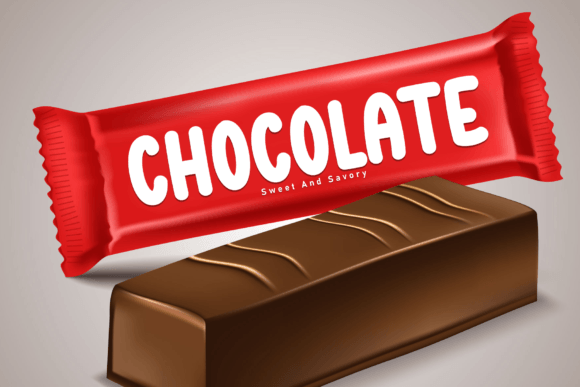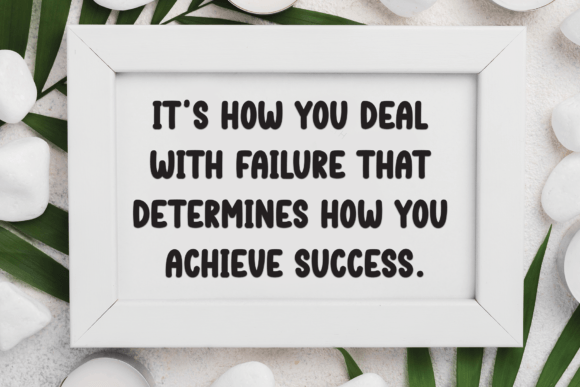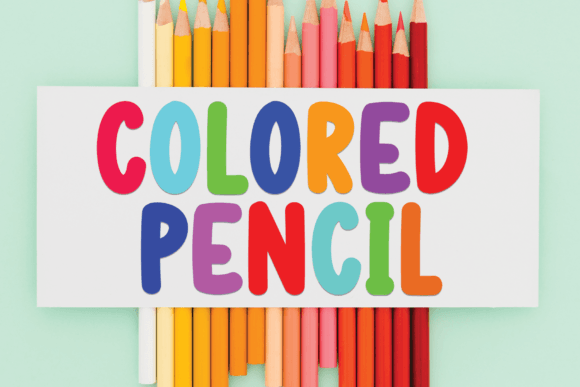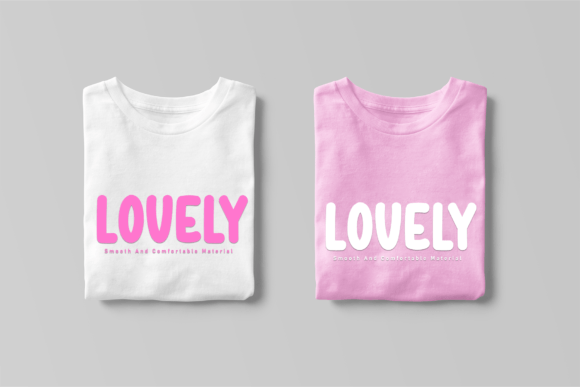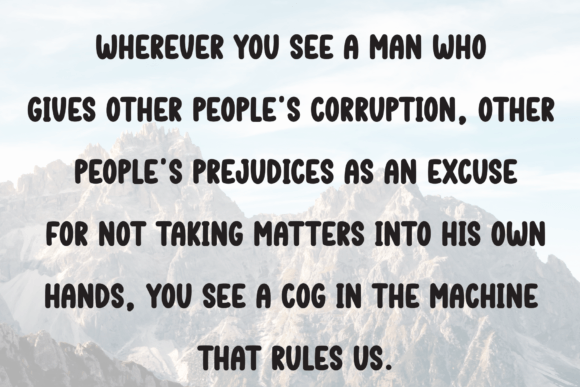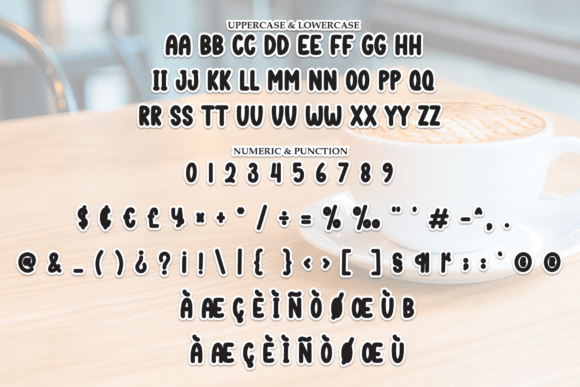
Cafe Coffee Font: The Perfect Addition to Your Design Projects
Are you a designer or crafter looking for a font that can add a touch of whimsy and charm to your projects? Look no further than Cafe Coffee Font. This cute and charming display font is sure to brighten up each of your designs and leave a lasting impression on your audience. In this article, we’ll take a closer look at Cafe Coffee Font, its features, and how you can use it to elevate your design projects.
What is Cafe Coffee Font?
Cafe Coffee Font is a display font that is designed to add a touch of playfulness and quirkiness to your designs. Its unique and charming style makes it perfect for a variety of projects, from branding and advertising to packaging and signage. The font is carefully crafted to evoke the feeling of a cozy coffee shop, making it ideal for cafes, coffee shops, and bakeries.
Key Features of Cafe Coffee Font
So, what makes Cafe Coffee Font so special? Here are some of its key features:
- Whimsical and Quirky: Cafe Coffee Font has a unique and playful style that is sure to grab attention.
- Cute and Charming: The font’s design is carefully crafted to evoke a sense of warmth and coziness.
- Display Font: Cafe Coffee Font is designed specifically for display purposes, making it perfect for headlines, titles, and short text.
- Easy to Read: Despite its playful style, Cafe Coffee Font is easy to read and understand, making it perfect for a variety of applications.
How to Use Cafe Coffee Font in Your Designs
Now that we’ve covered the features of Cafe Coffee Font, let’s take a look at how you can use it in your designs. Here are some ideas to get you started:
- Branding and Advertising: Use Cafe Coffee Font to create eye-catching logos, ads, and marketing materials for your clients or business.
- Packaging Design: Add a touch of whimsy to your product packaging with Cafe Coffee Font.
- Signage: Use Cafe Coffee Font to create eye-catching signs and displays for your business or event.
- Social Media Graphics: Add a touch of personality to your social media graphics with Cafe Coffee Font.
Tips for Using Cafe Coffee Font Effectively
To get the most out of Cafe Coffee Font, here are some tips to keep in mind:
- Use it Sparingly: Cafe Coffee Font is a display font, so use it sparingly to avoid overwhelming your design.
- Pair it with Other Fonts: Experiment with pairing Cafe Coffee Font with other fonts to create a unique and visually appealing design.
- Experiment with Colors: Don’t be afraid to experiment with different colors and textures to add depth and interest to your design.
In conclusion, Cafe Coffee Font is a cute and charming display font that is sure to brighten up each of your designs. Its whimsical and quirky style makes it perfect for a variety of projects, from branding and advertising to packaging and signage. With its ease of use and versatility, Cafe Coffee Font is a great addition to any designer’s or crafter’s toolkit. So why not give it a try and see the difference it can make in your designs?